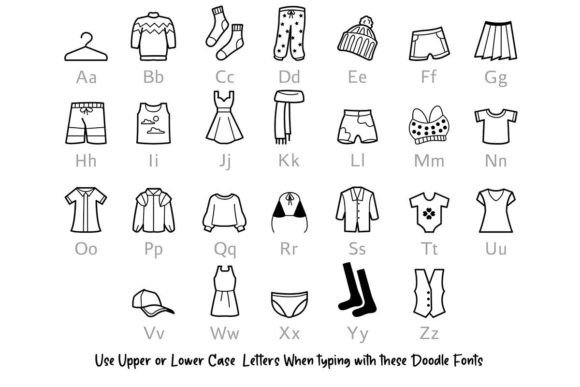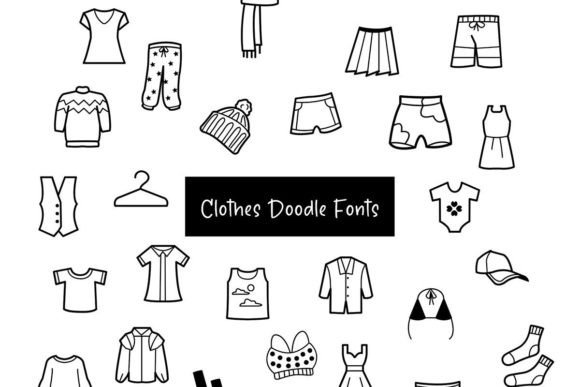
About Clothes Doodle Font
The Clothes Doodle dingbats font is a playful and versatile typeface that adds a touch of whimsy to your design projects. With its collection of clothing-related symbols and doodle-style illustrations, this font allows you to create visually appealing and unique designs.
Whether you’re working on fashion-related projects, clothing brands, or simply want to incorporate fun elements into your designs, the Clothes Doodle font is a great choice. Each glyph within the font represents a different clothing item or fashion accessory, such as shirts, dresses, shoes, hats, and more. These symbols can be used to enhance your designs, create patterns, or add decorative elements that relate to the world of fashion and style.
The doodle-style illustrations in the font add a sense of playfulness and creativity to your projects. These illustrations can be used to create backgrounds, borders, or simply to add visual interest to your designs. They provide a unique and charming touch that sets your work apart and captures the attention of your audience.
The versatility of the Clothes Doodle font allows it to be used in a variety of projects. From fashion blogs and social media graphics to apparel designs and invitations, this font adds a fun and engaging element that complements your overall aesthetic. Whether you’re designing for print or digital platforms, the Clothes Doodle font can be easily incorporated into your workflow.
Using the Clothes Doodle font is simple and straightforward. Each symbol and illustration is carefully designed to ensure clarity and readability in your designs. The font allows you to experiment with different layouts, colors, and sizes, giving you the freedom to create visually stunning compositions that reflect your unique style.
In conclusion, the Clothes Doodle dingbats font is a fun and useful typeface that adds a playful and whimsical touch to your design projects, especially those related to fashion and clothing. By confidently incorporating the Clothes Doodle font into your work, you’ll love the results and create visually captivating designs that delight and inspire your audience.